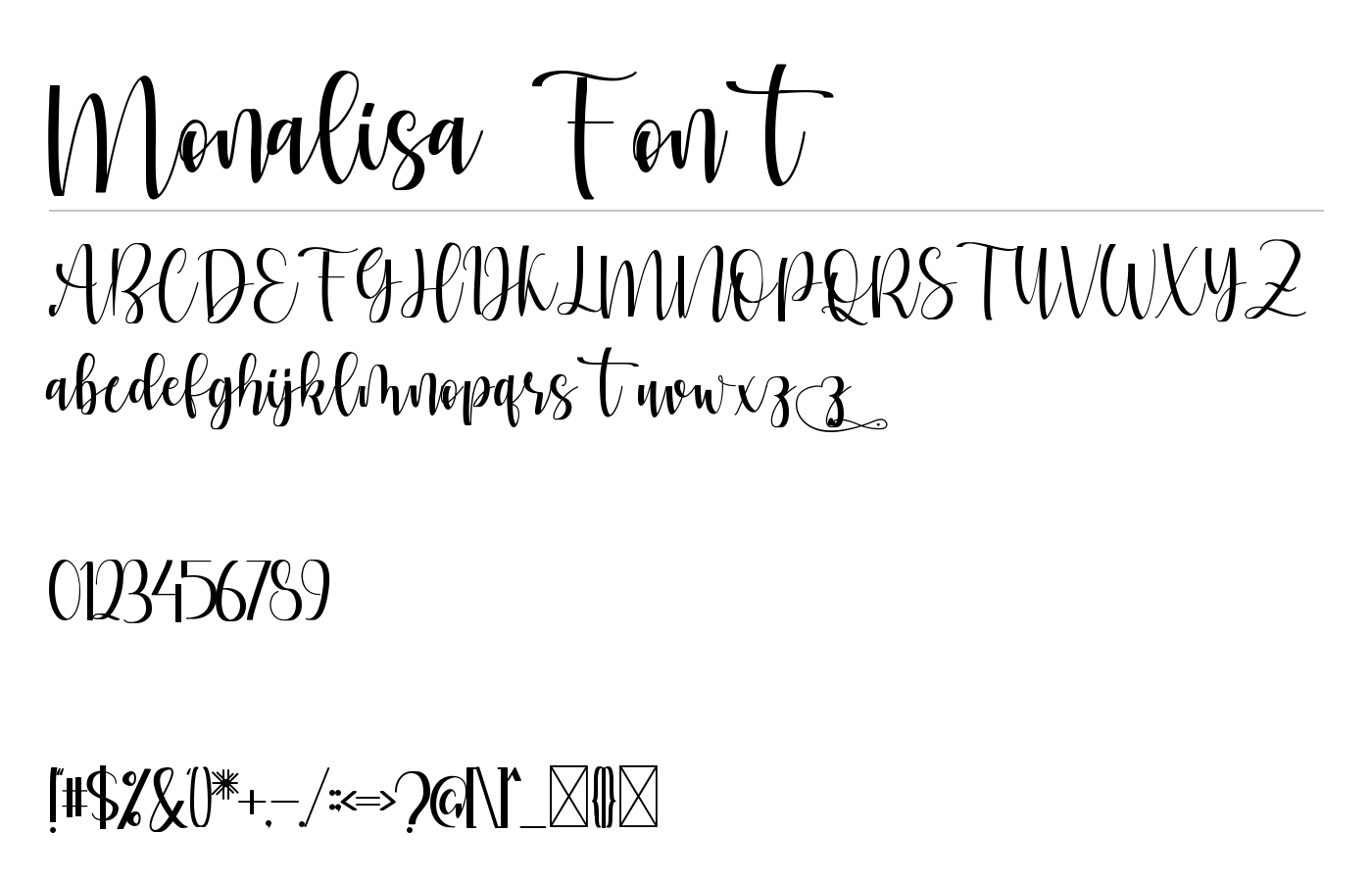
Monalisa Font is a graceful and elegant script typeface with a modern handwritten feel, featuring flowing, slender strokes and playful swashes that add a touch of sophistication. Its tall x-height and varied stroke thickness make it perfect for stylish branding, wedding invitations, and feminine editorial designs where a refined yet approachable personality is desired. This font works beautifully in headlines or decorative text, bringing a sense of charm and artistry to any creative project.
Monalisa Font
About Monalisa Font
| Font family | Monalisa Font |
| Designer | Fiqiart |